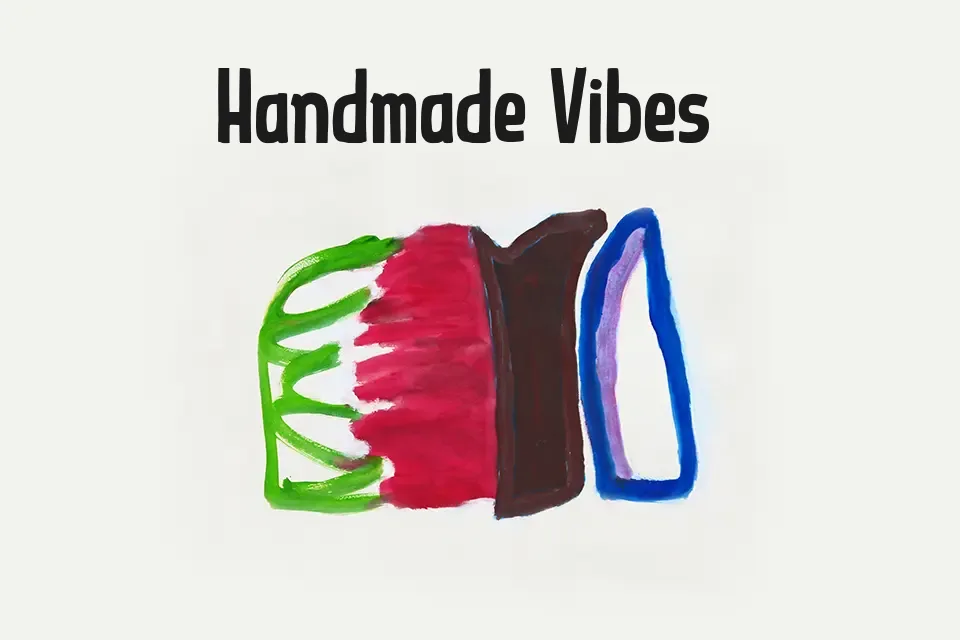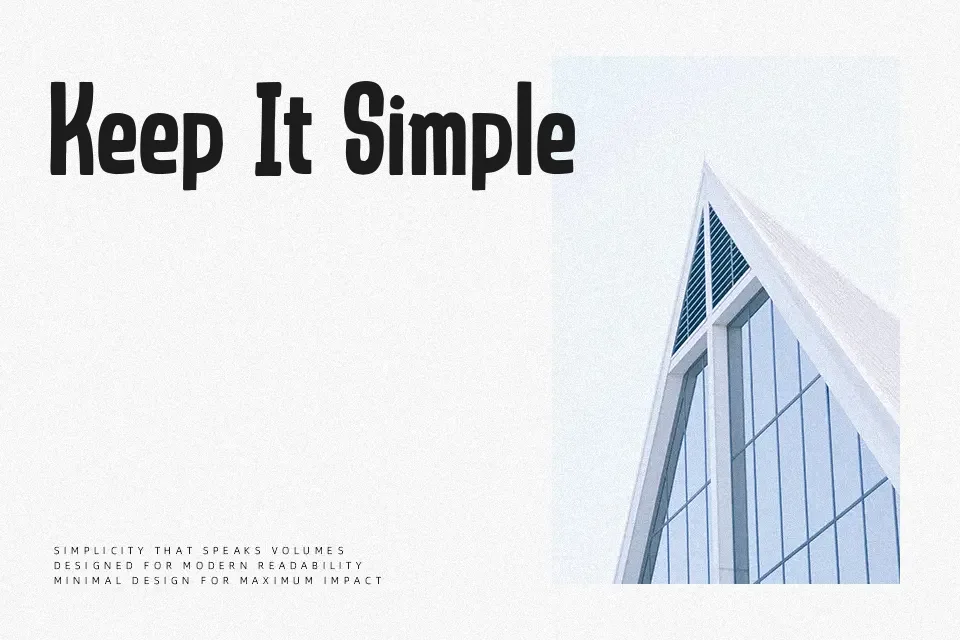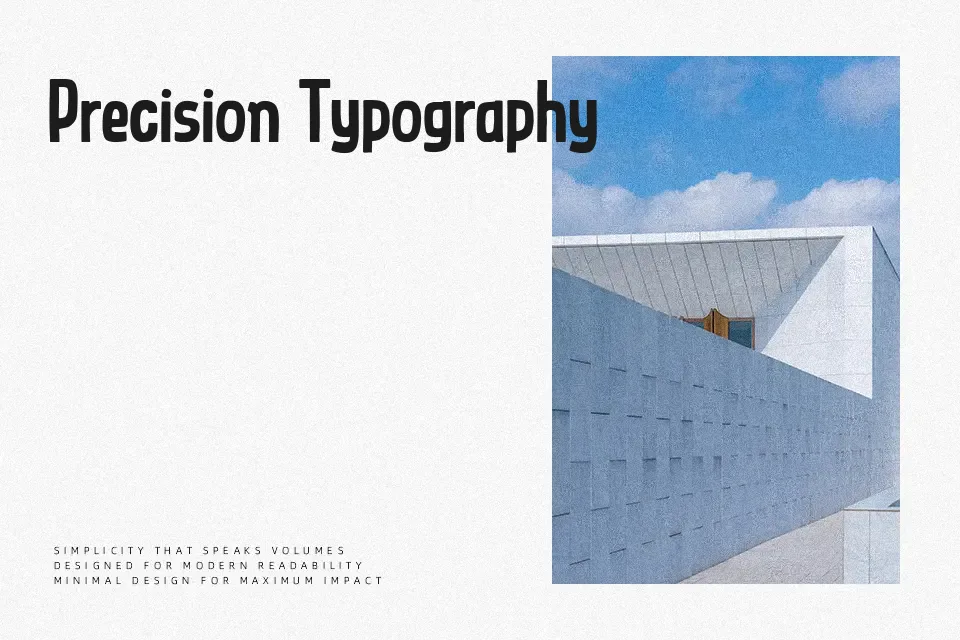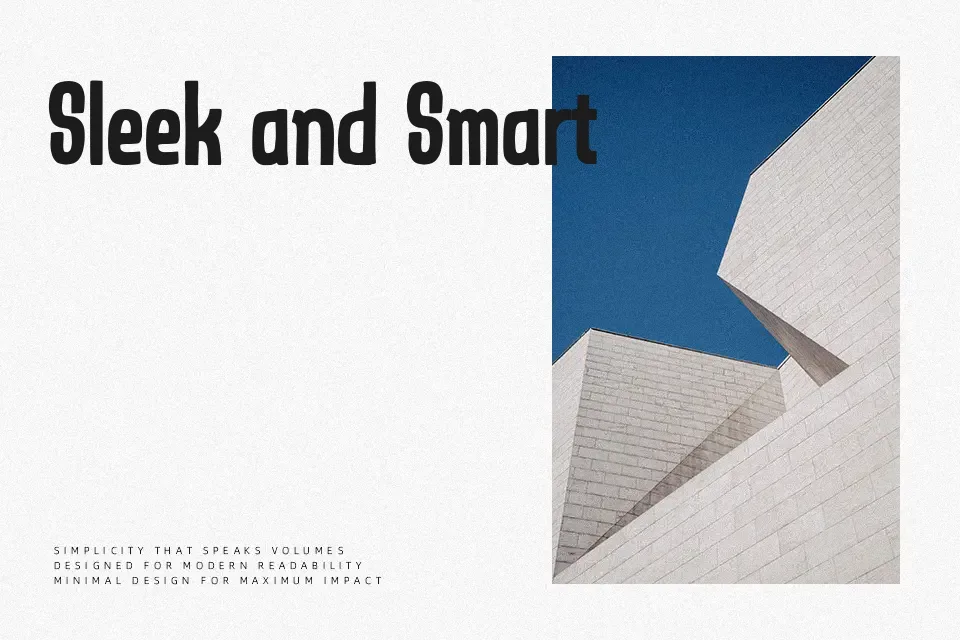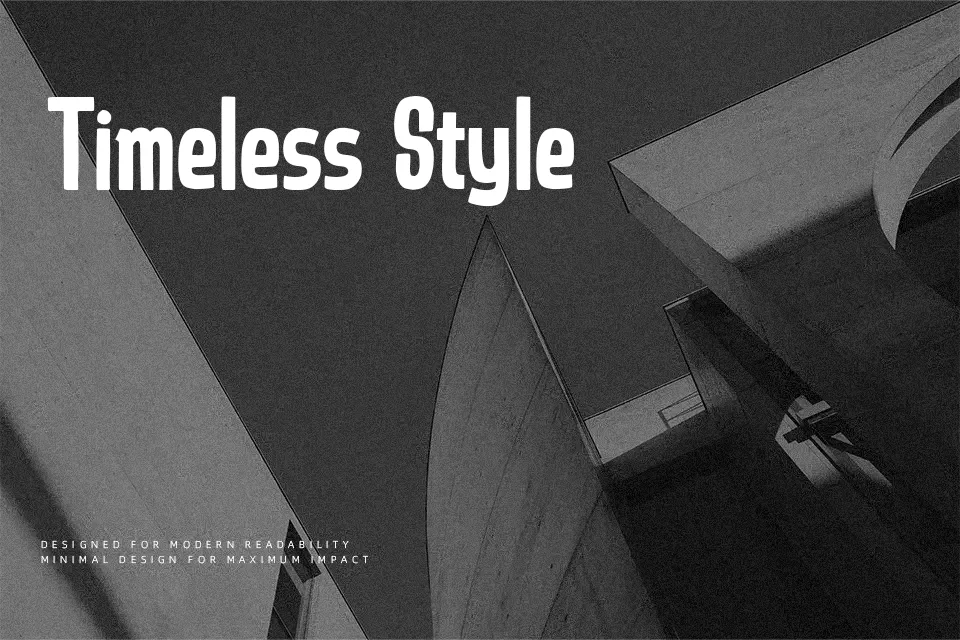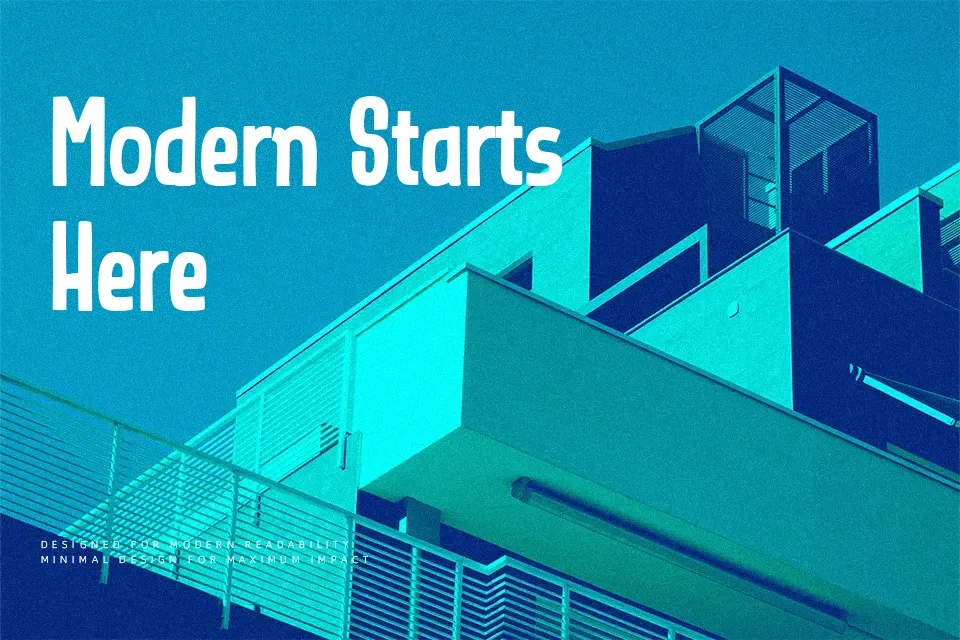
QuillQuirk Font
QuillQuirk Font features a contemporary sans-serif structure that blends smooth curvature with subtle, distinctive stroke details. The letterforms maintain a balanced visual rhythm through predictable proportions and open spacing, offering an inviting yet professional appearance. Its clear, even stroke contrast ensures that medium to large display text remains highly legible. This typeface performs exceptionally well in modern branding scenarios like cosmetic packaging or lifestyle magazine headers. However, the slightly playful structural details can become less effective at smaller sizes, making it less ideal for dense, continuous reading. The generous spacing helps maintain clarity in larger headlines, giving designers an adaptable and stylish typographic tool.
lifestyle branding
cosmetic packaging
magazine headers
shopping bags
technical manuals
Perfect for branding, headline, and packaging, with a clean and display style.